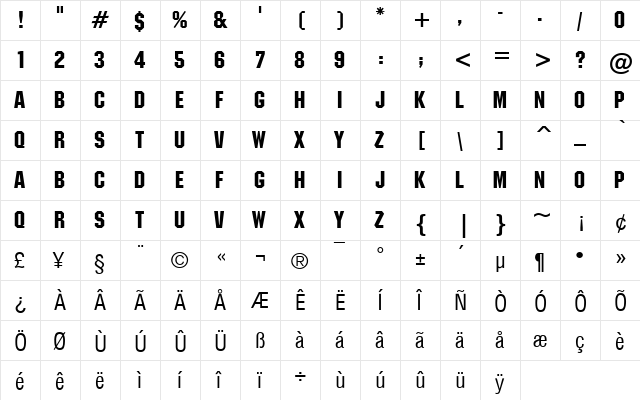
Ayar_Pyatho_pub DemiBold
| Foundry | Ayar Unicode Group |
| Designer | Ayar Unicode Group |
Design Context for Ayar_Pyatho_pub Typeface
Ayar_Pyatho_pub takes a measured approach to typography — its balanced proportions and neutral character make it a reliable workhorse for both digital and print work. The heavy weight commands attention and anchors typographic hierarchies.